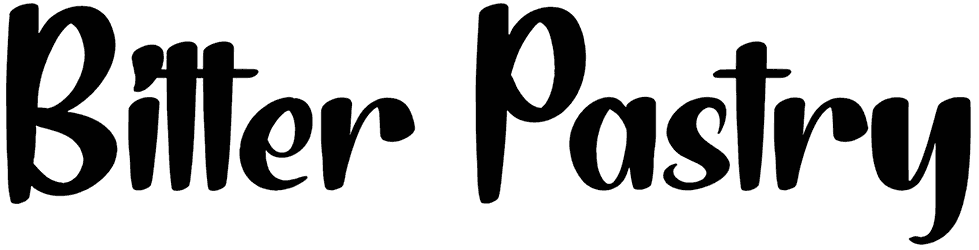
Bitter Pastry Font
A professional graphic designer would never underestimate the ability of a script font such as Bitter Pastry in crafting high-end creative content, including animation posters, flyers, digital banners, or the user interface of applications.